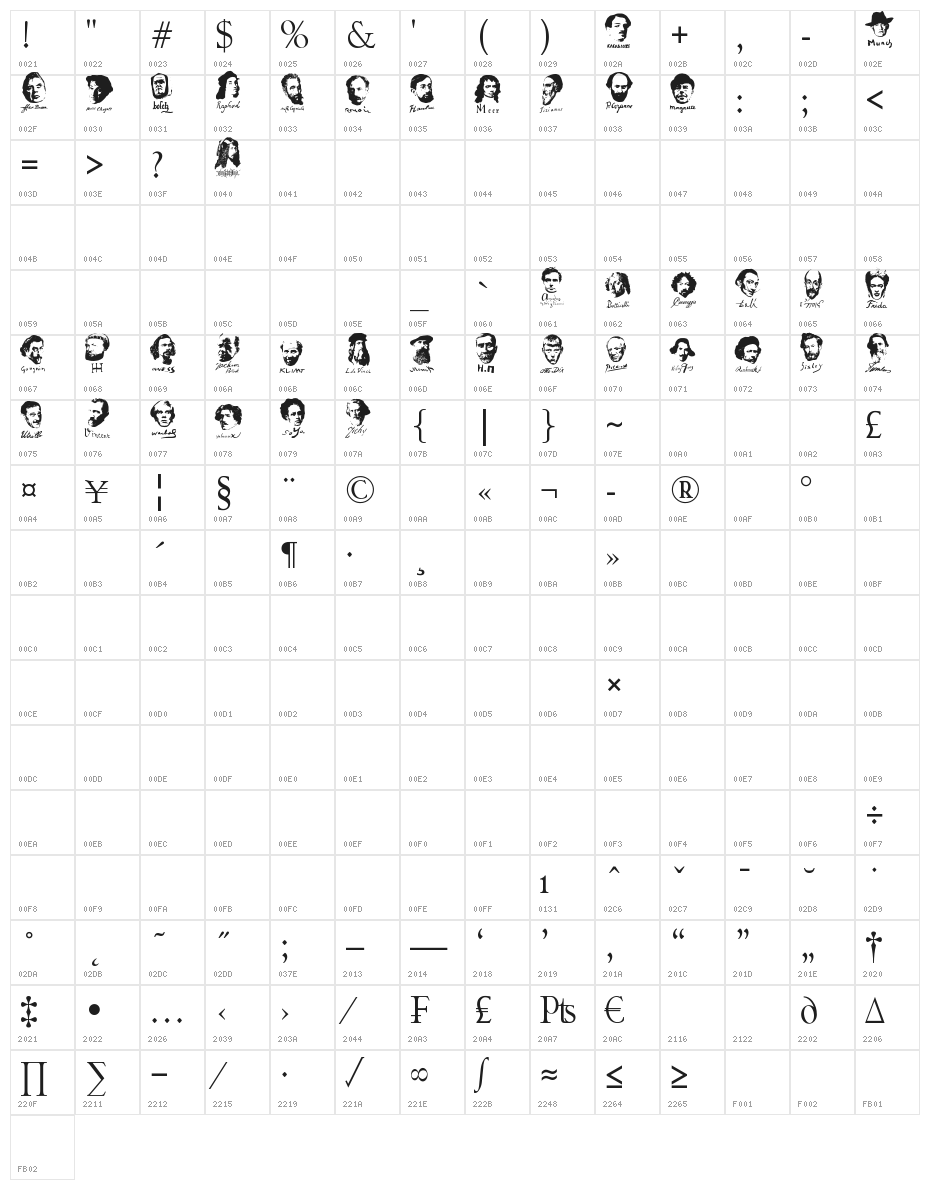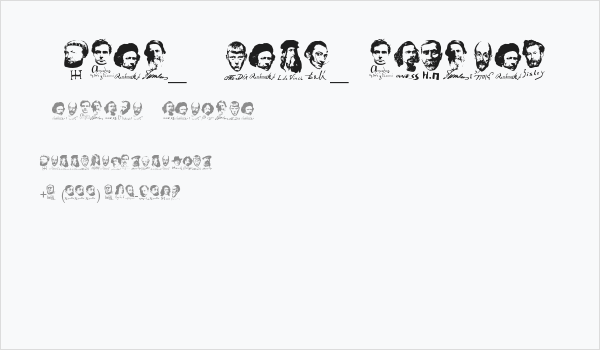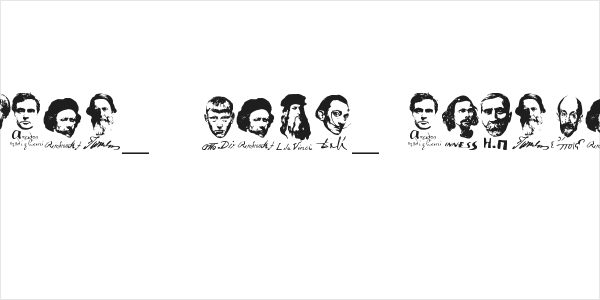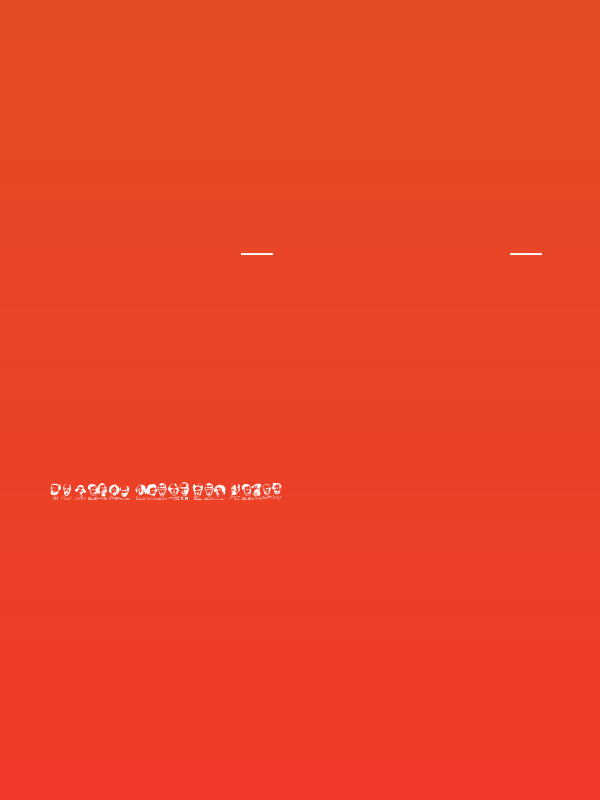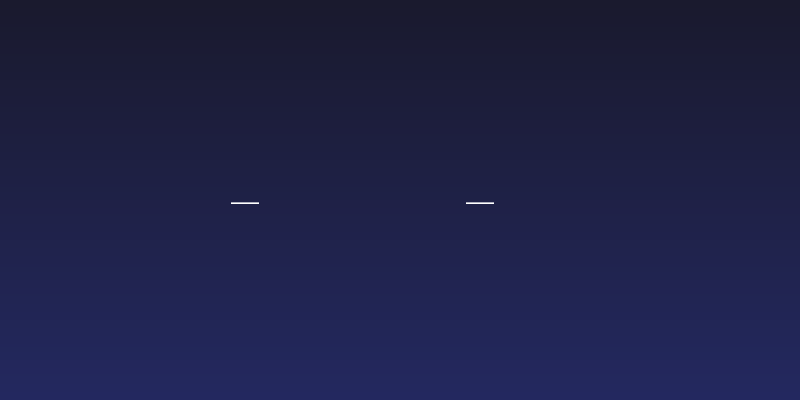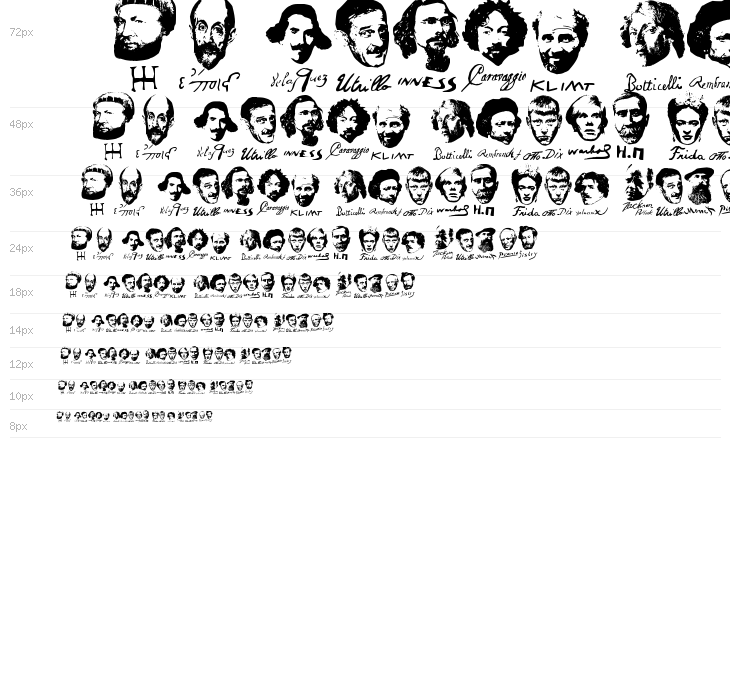
Thart_World_Painters Font
Thart_World_Painters Description
This is not a valid font image. It appears to be a collection of portraits and signatures of famous painters, each accompanied by a stylized depiction of their name. The image includes various artistic representations and does not follow a consistent typographic style suitable for font creation. The signatures and portraits are more illustrative and decorative, capturing the essence of each artist rather than providing a cohesive typeface.
| Overall Style | Illustrative, Artistic |
| Use Case | Decorative art, Educational materials |
| Proposed Projects | This image could be used for educational posters about famous painters or as a decorative element in art galleries. |